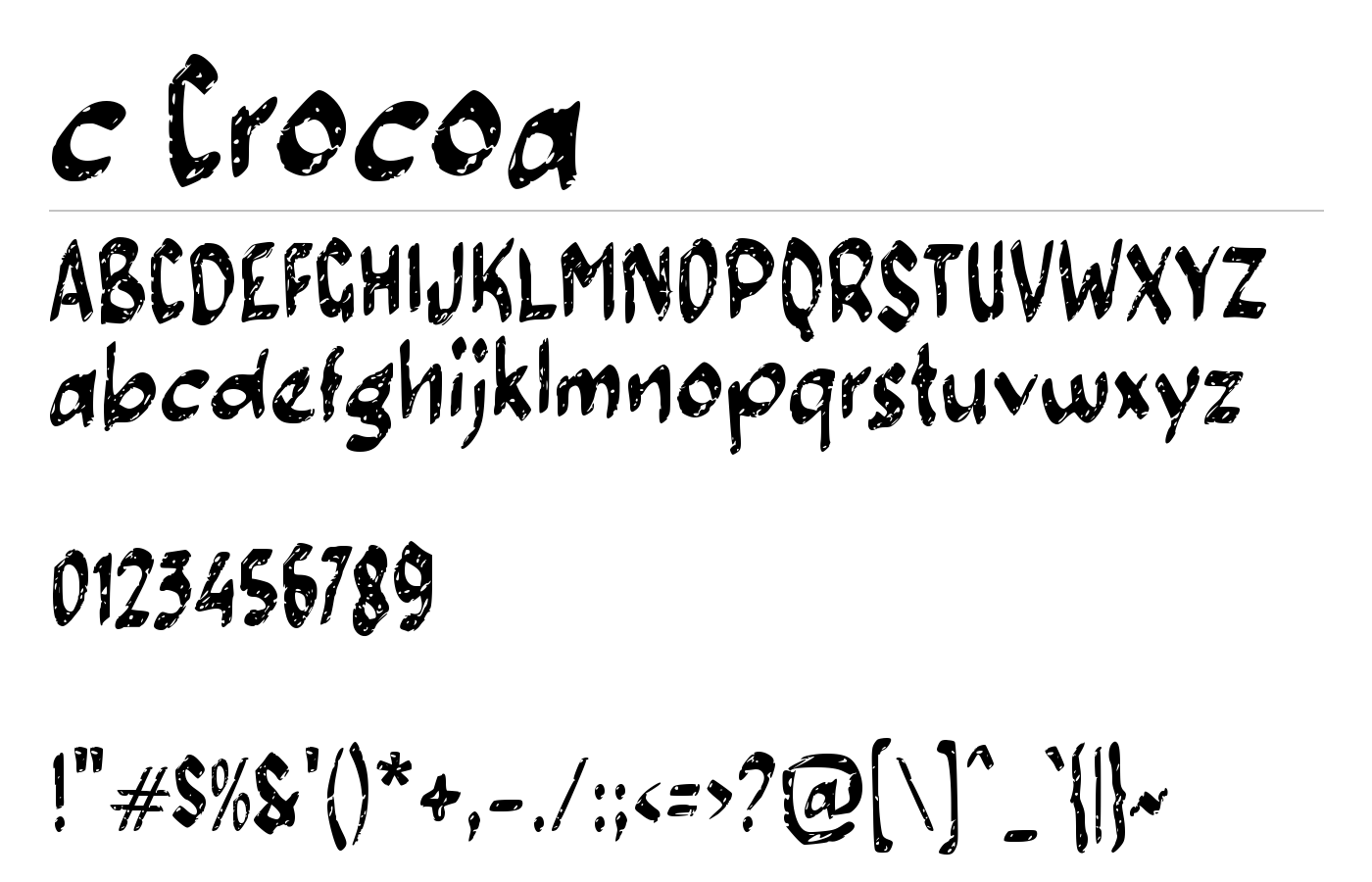
c Crocoa is a lively, hand-drawn sans serif font with a textured, distressed look that adds character and a playful vibe. Its irregular shapes and casual strokes make it ideal for creative and informal designs, perfect for posters, packaging, and branding that seek a unique, artistic feel. This font works well where a friendly, handcrafted style is desired to stand out and evoke a personal touch.
c Crocoa Font
About c Crocoa Font